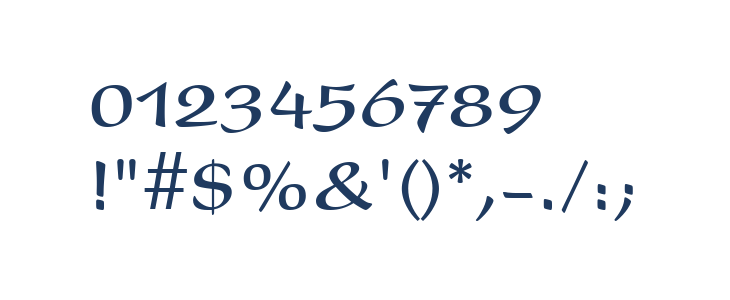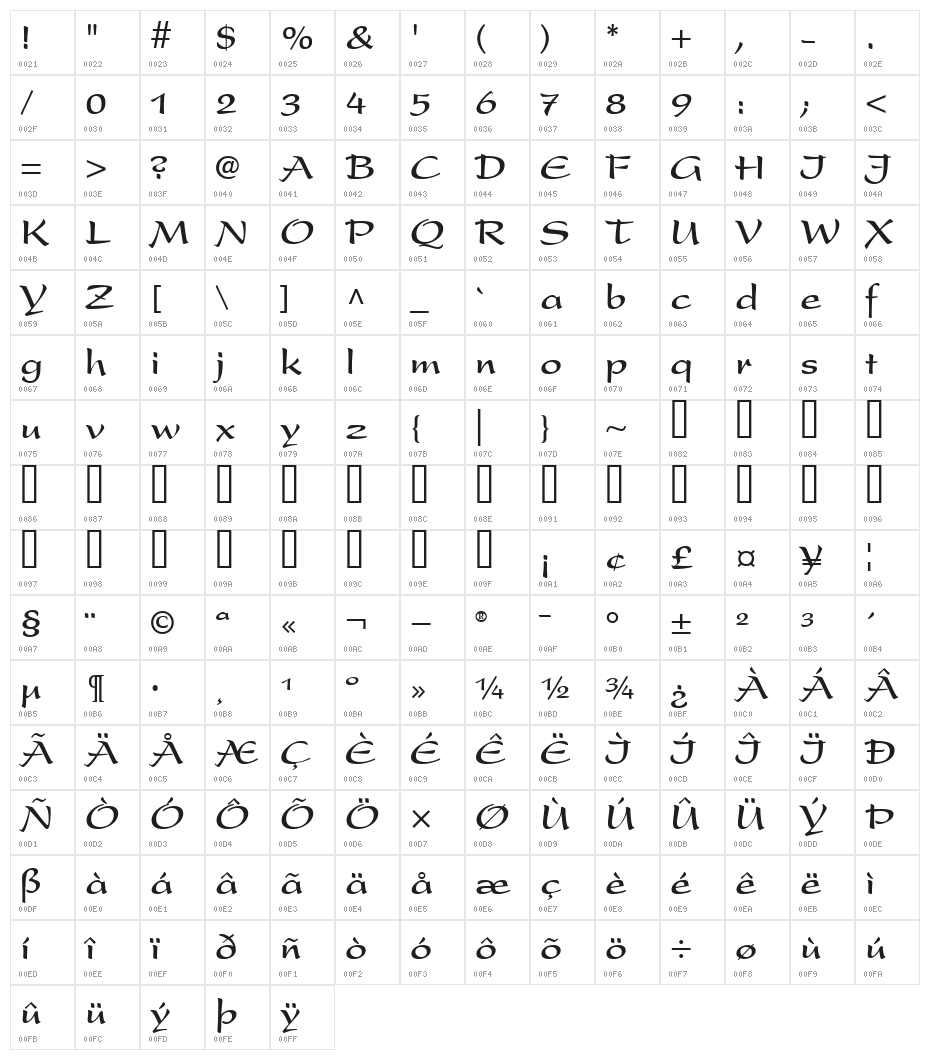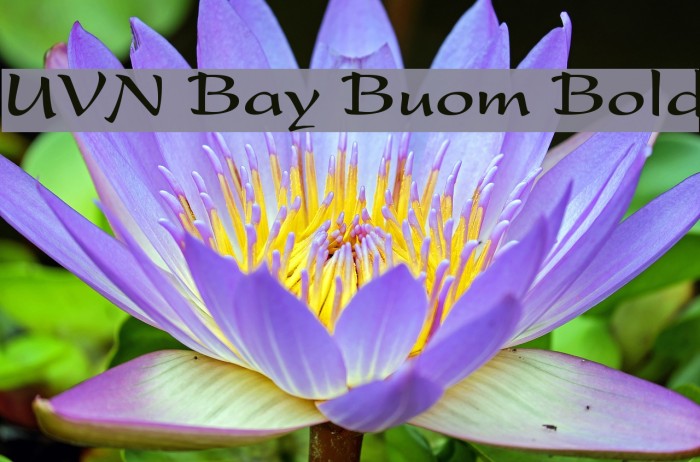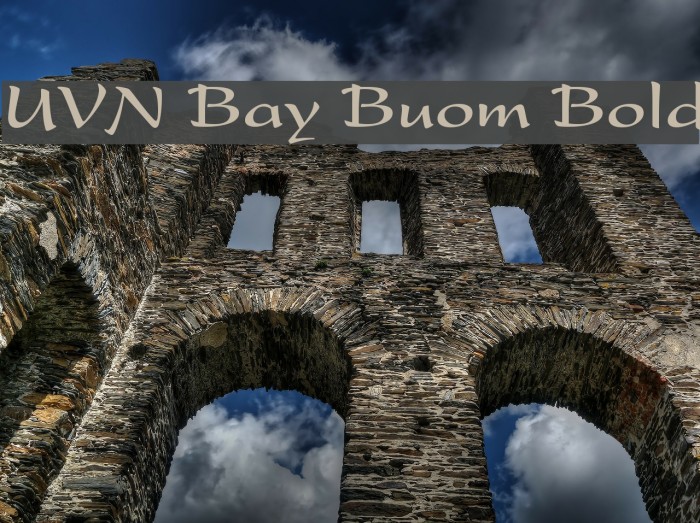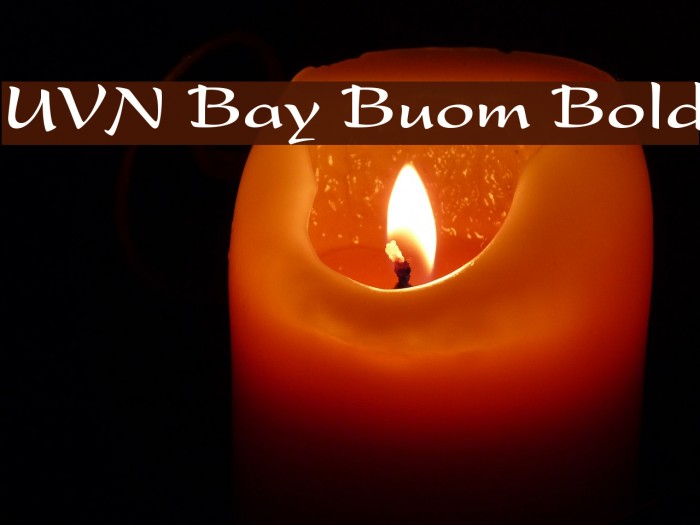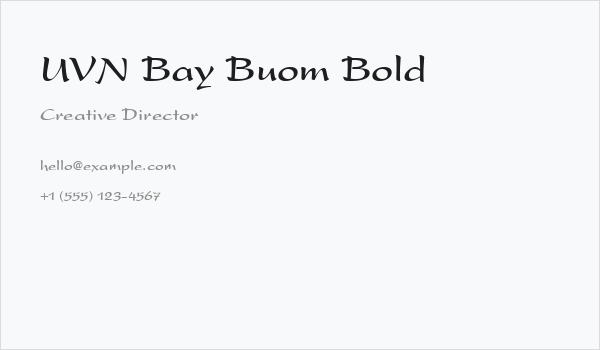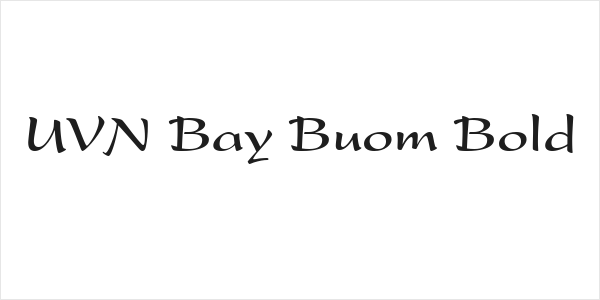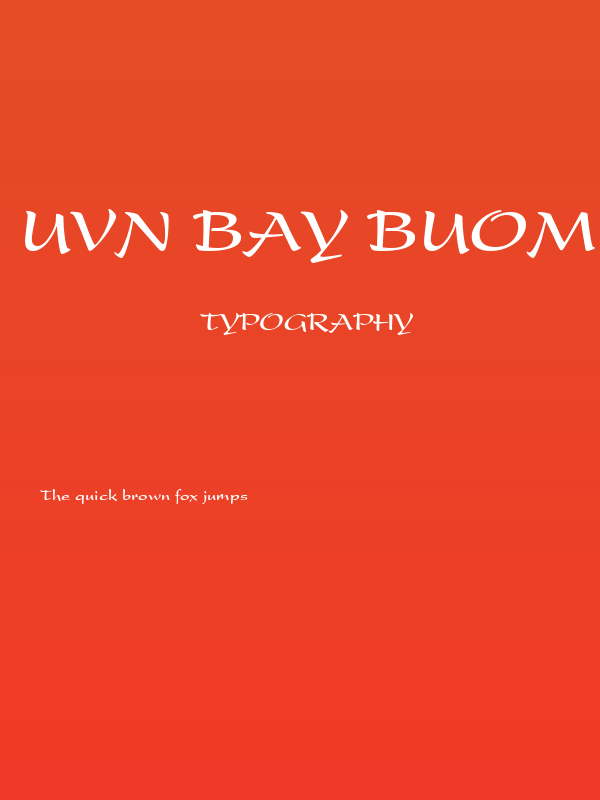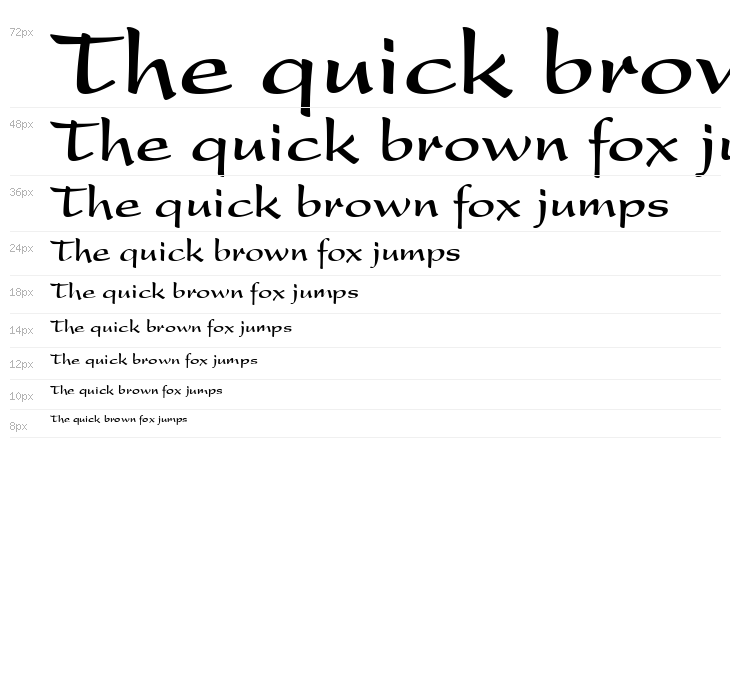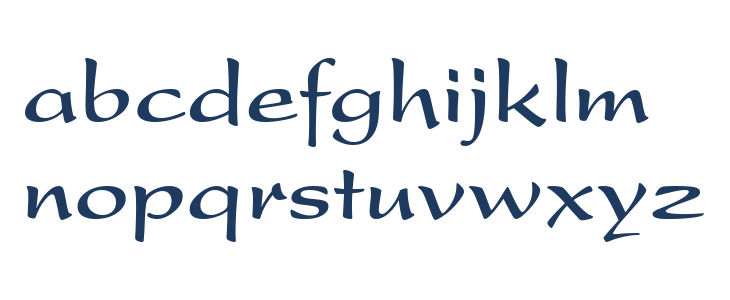
UVN Bay Buom Bold Font
UVN Bay Buom Bold Description
This font features a dynamic and expressive style with a handwritten flair. The characters exhibit a playful yet elegant design, characterized by smooth curves and a slight slant, giving it a lively and energetic appearance. The uppercase letters are bold and prominent, while the lowercase letters maintain a consistent flow, enhancing readability. The numerals are distinct and well-proportioned, complementing the overall aesthetic. Special characters are creatively designed, adding to the font's versatility. The font's unique style makes it suitable for various creative projects, offering a balance between artistic expression and legibility.